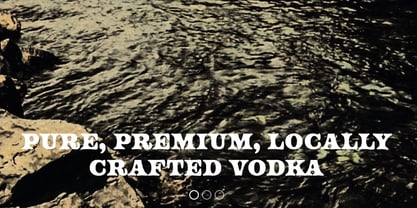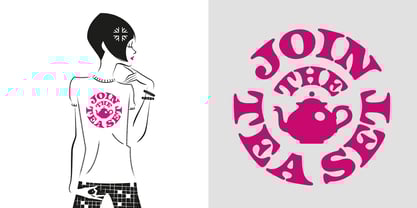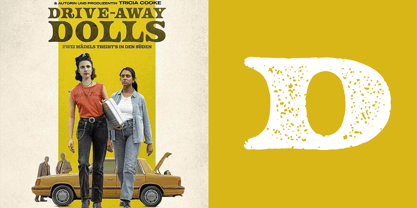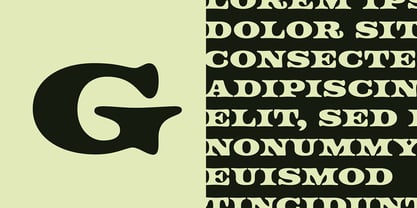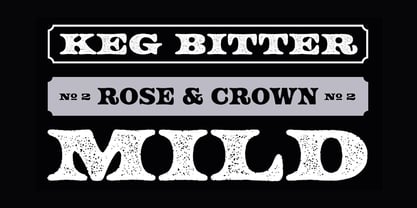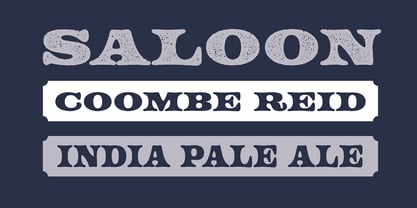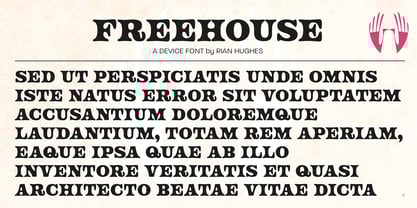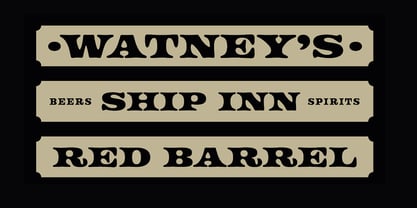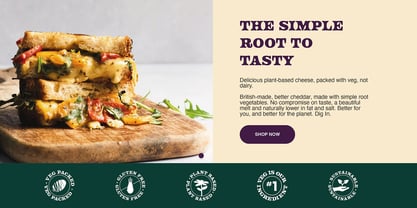
Freehouse
The Freehouse Font Family was designed by Rian Hughes and published by Device. Freehouse contains 3 styles and family package options. More about this family
Freehouse is a reinterpretation of the well-remembered Watney’s logo, a brewery and pub chain infamous for its poor quality beer and brutalist decor. In Design Research Unit’s corporate guidelines from 1966 the font is described as Clarendon Bold Expanded — however, this is not the case. Clarendon has square serifs, whereas the Watney’s font is rounder and friendlier. A fixture of the British high street landscape for decades, this digitisation adds a full international character set, numbers, punctuation and many other characters that did not exist in the original. A distressed version that evokes rough print on a wet beermat has also been developed.